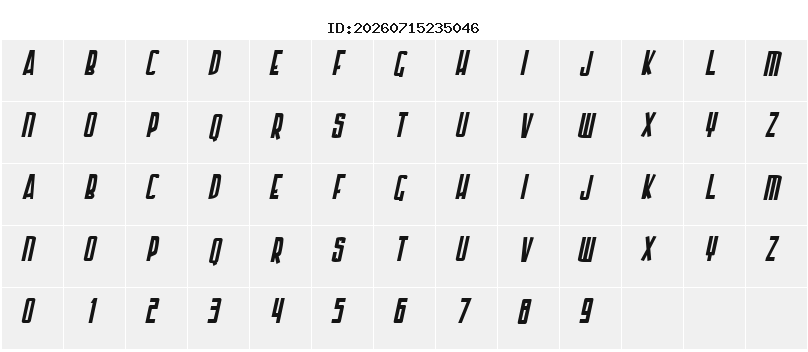
• Font Name: Armor Piercing
• Font ID: Armor Piercing
• Full Font Name: Armor Piercing Italic
• PostScript Name: ArmorPiercingItalic
About Armor Piercing.ttf
Armor Piercing.ttf is a modern, elegant sans-serif font designed for ultimate readability and visual harmony. Perfect for branding, headlines, web design, and print materials.